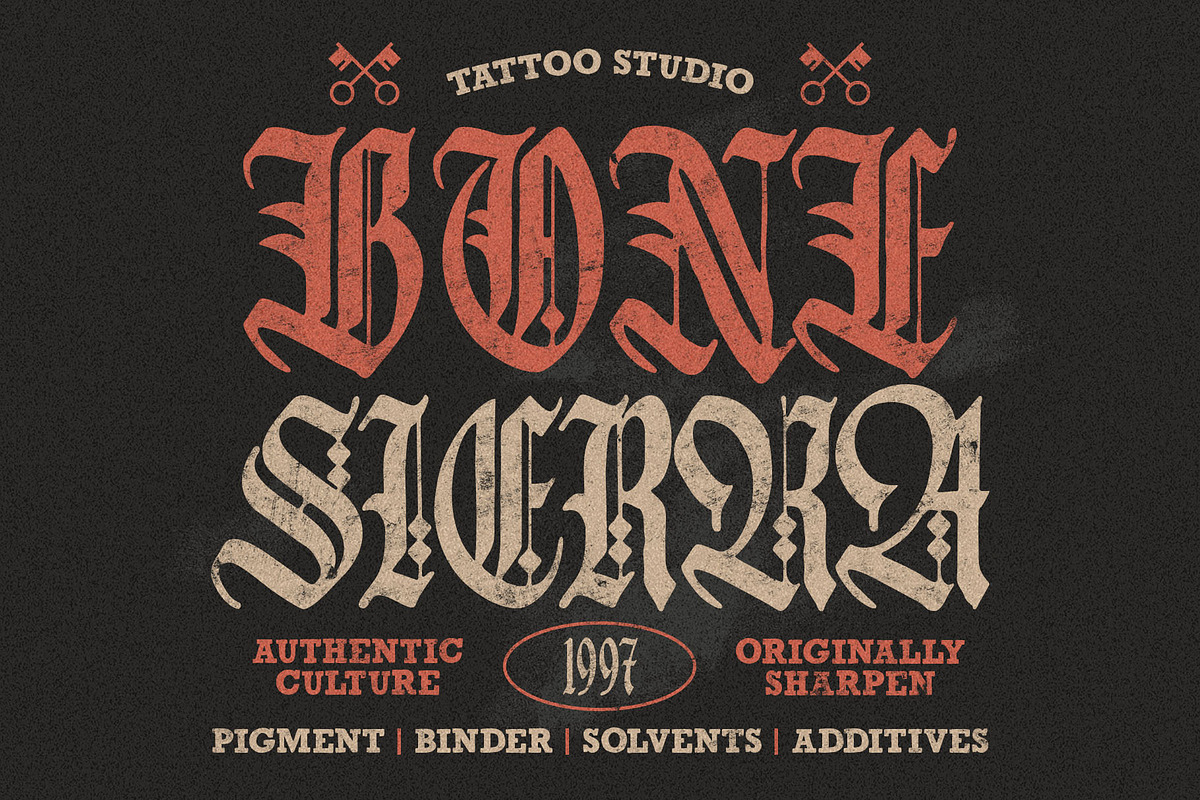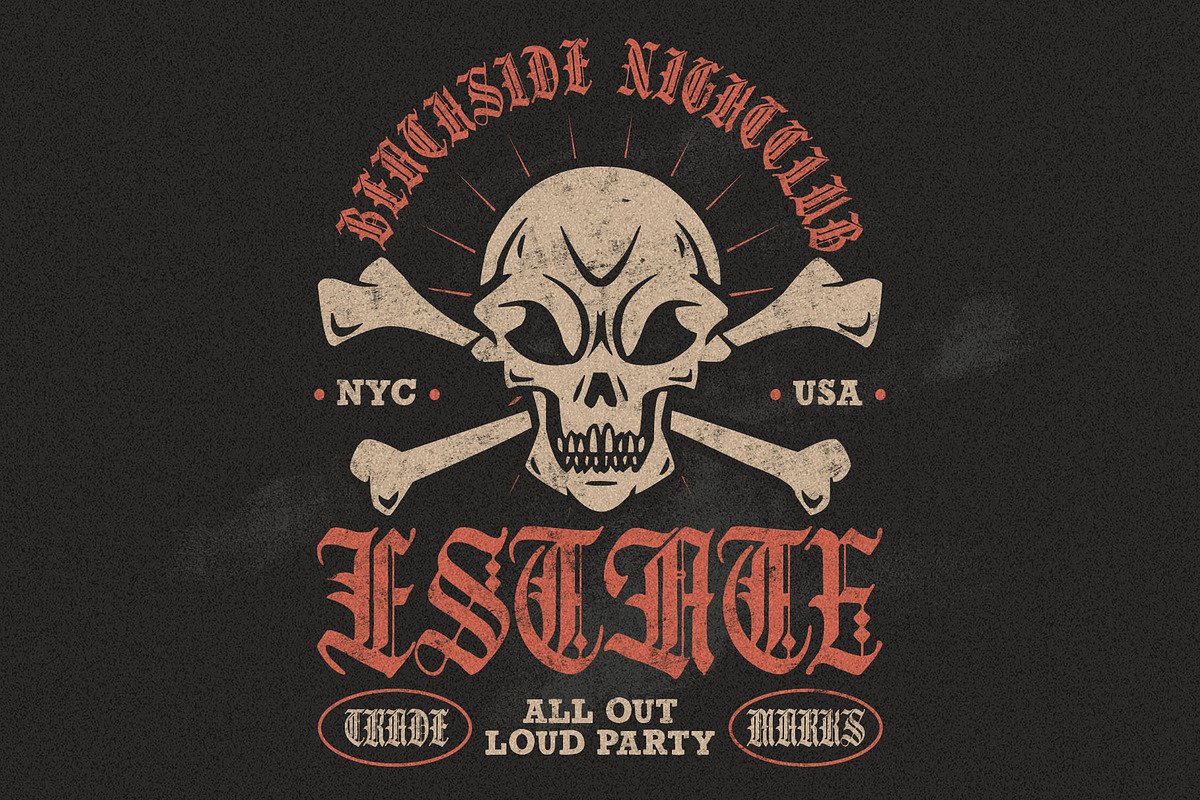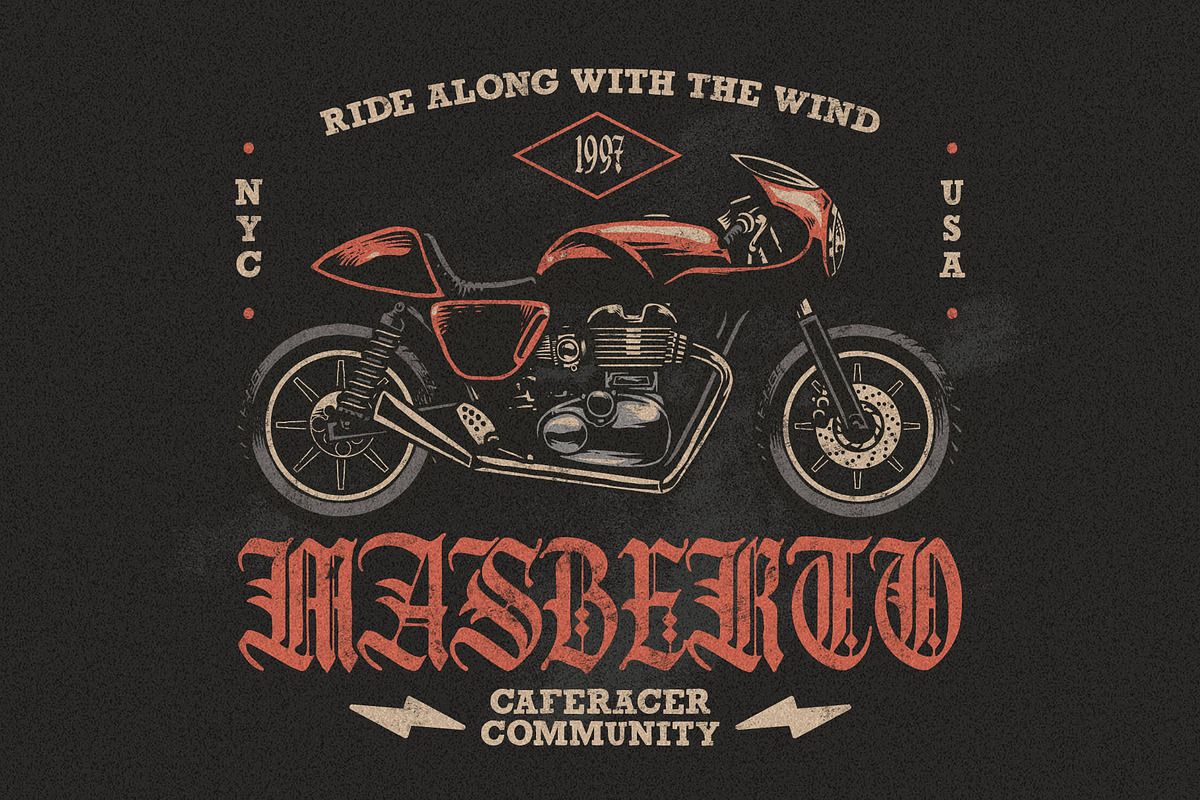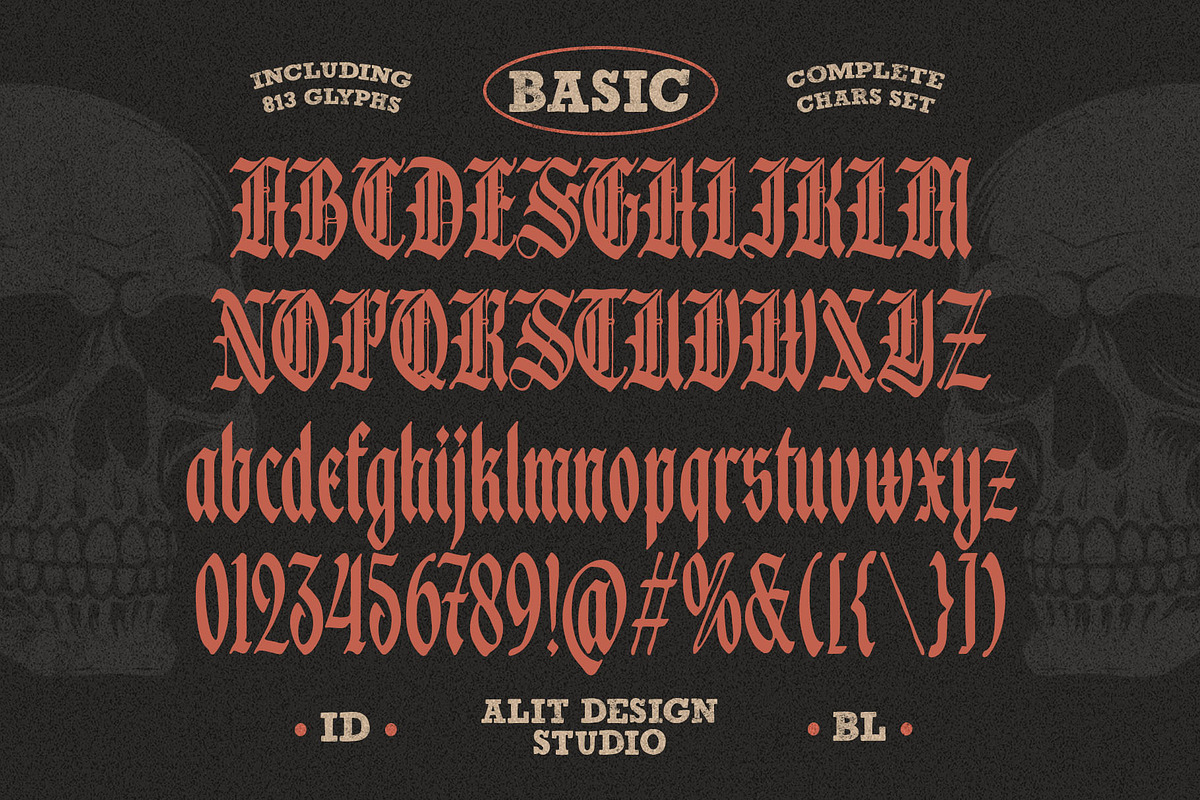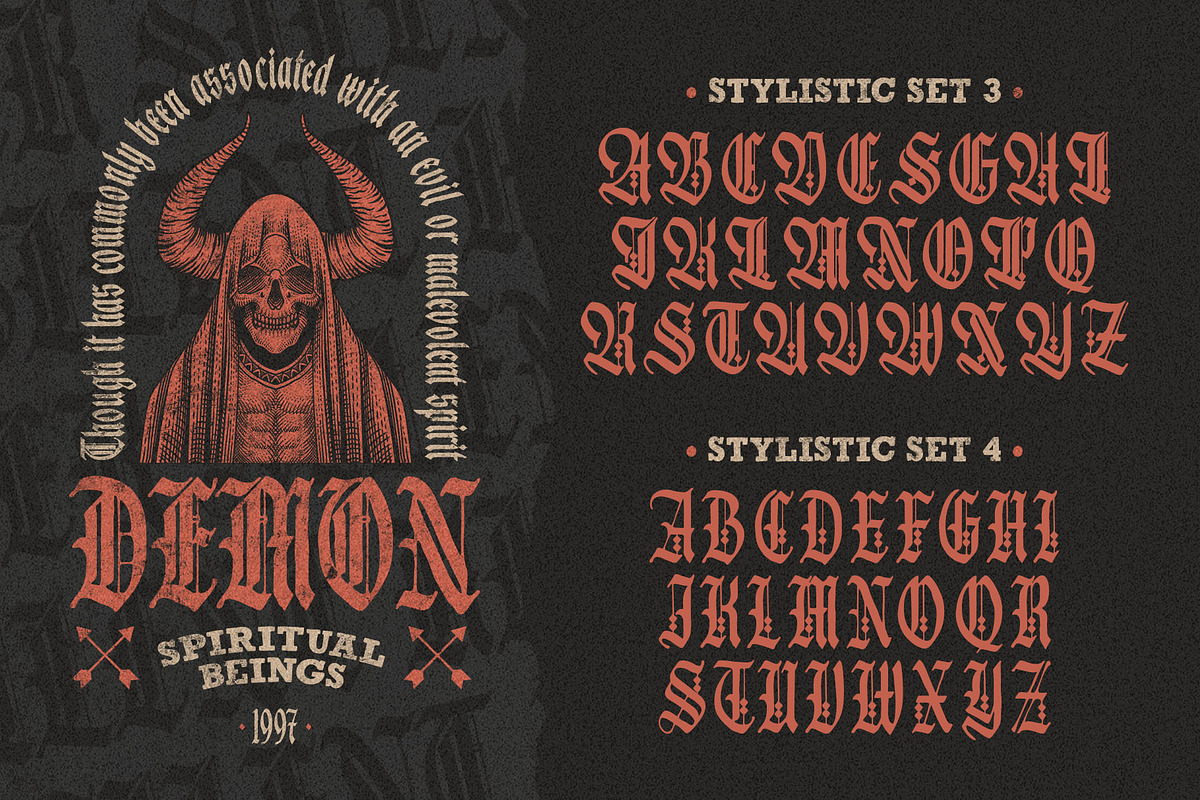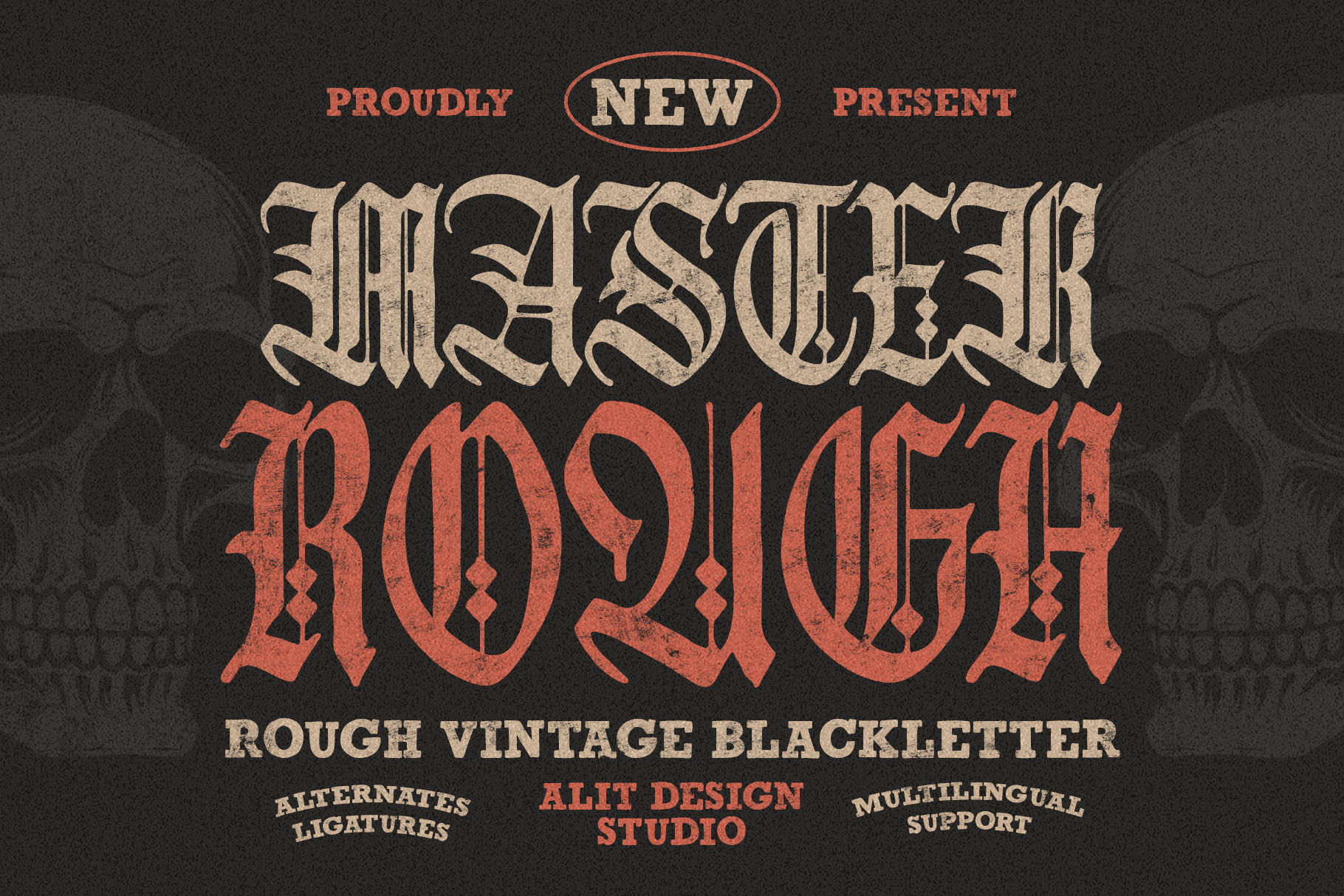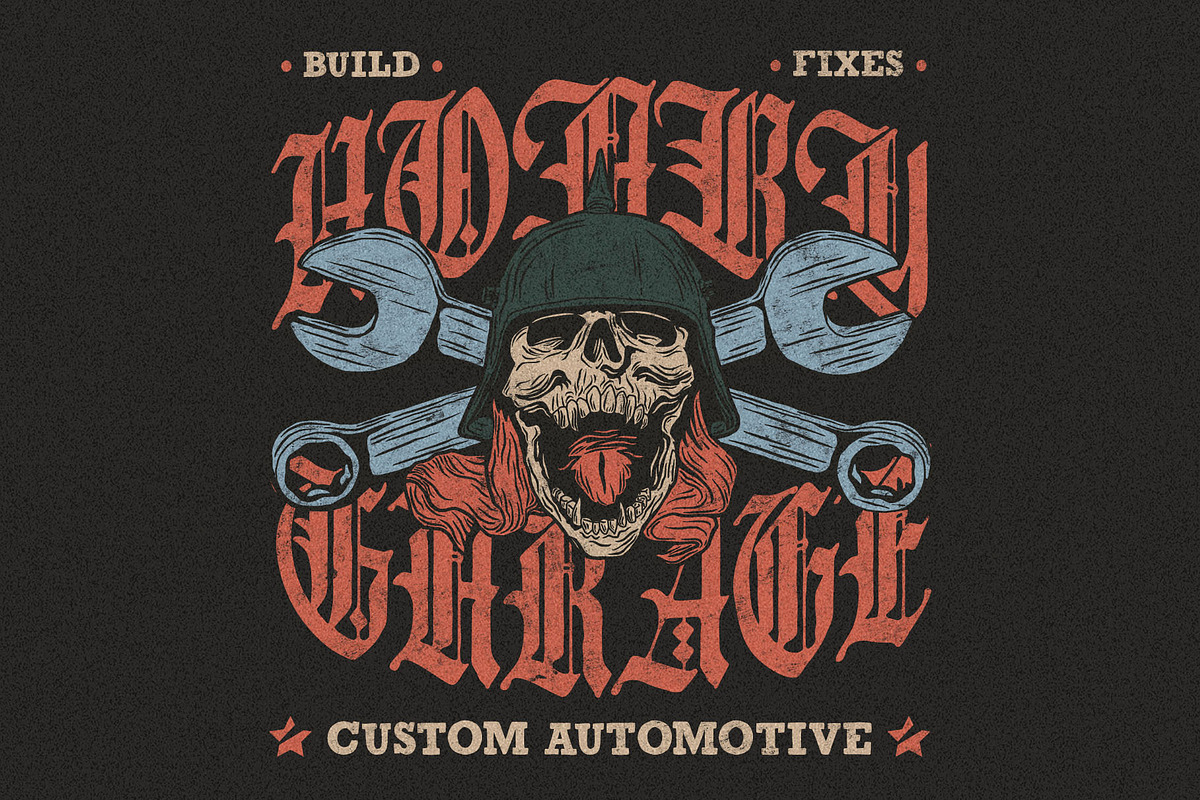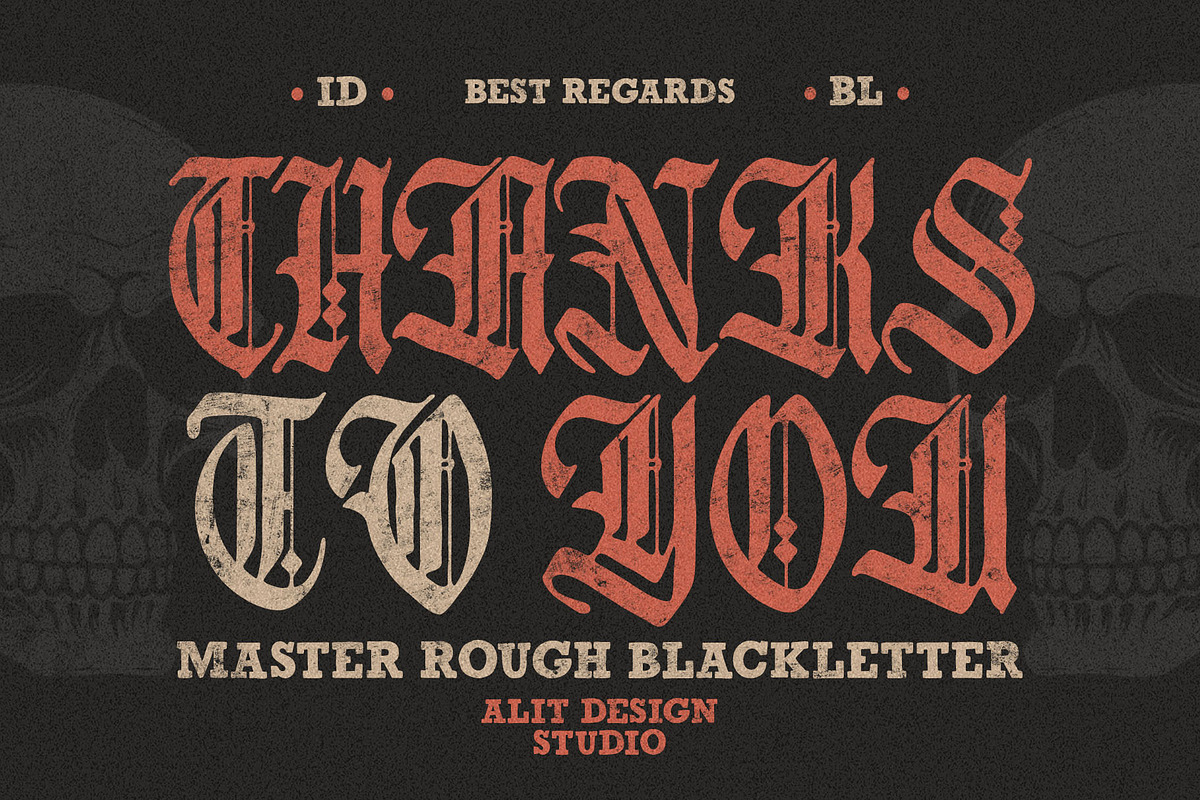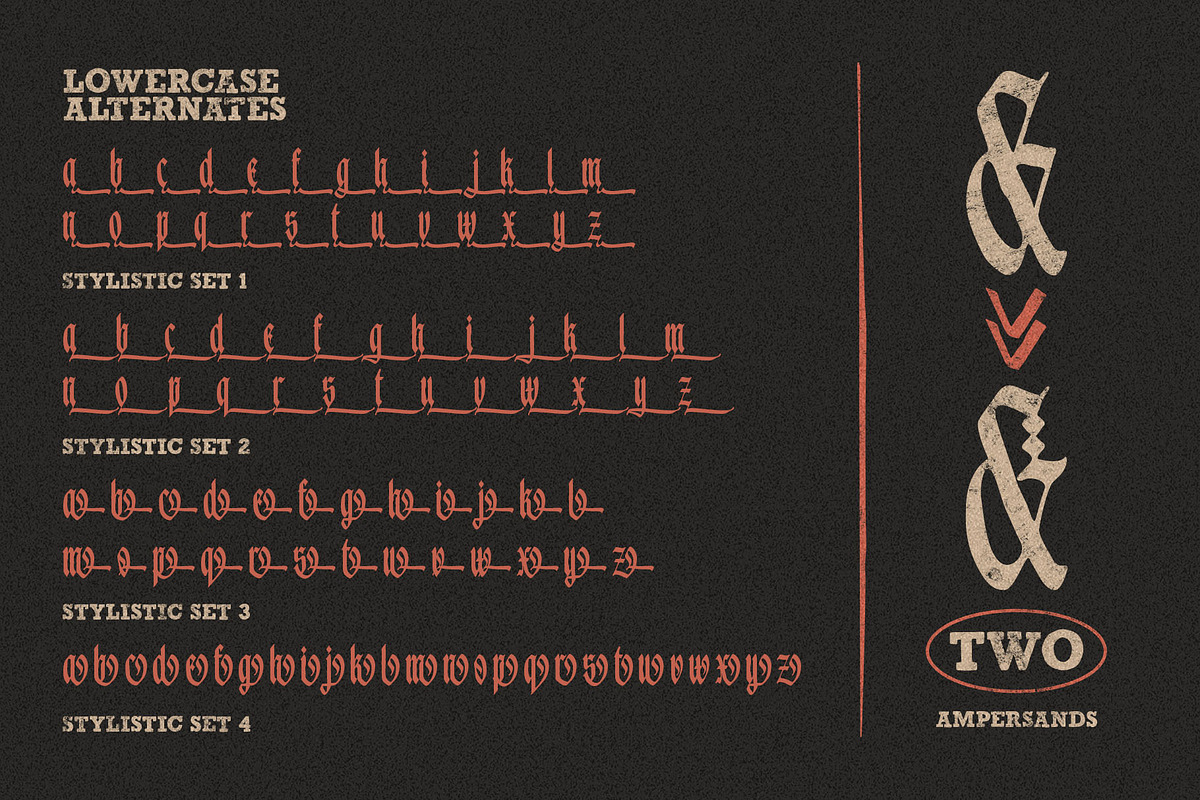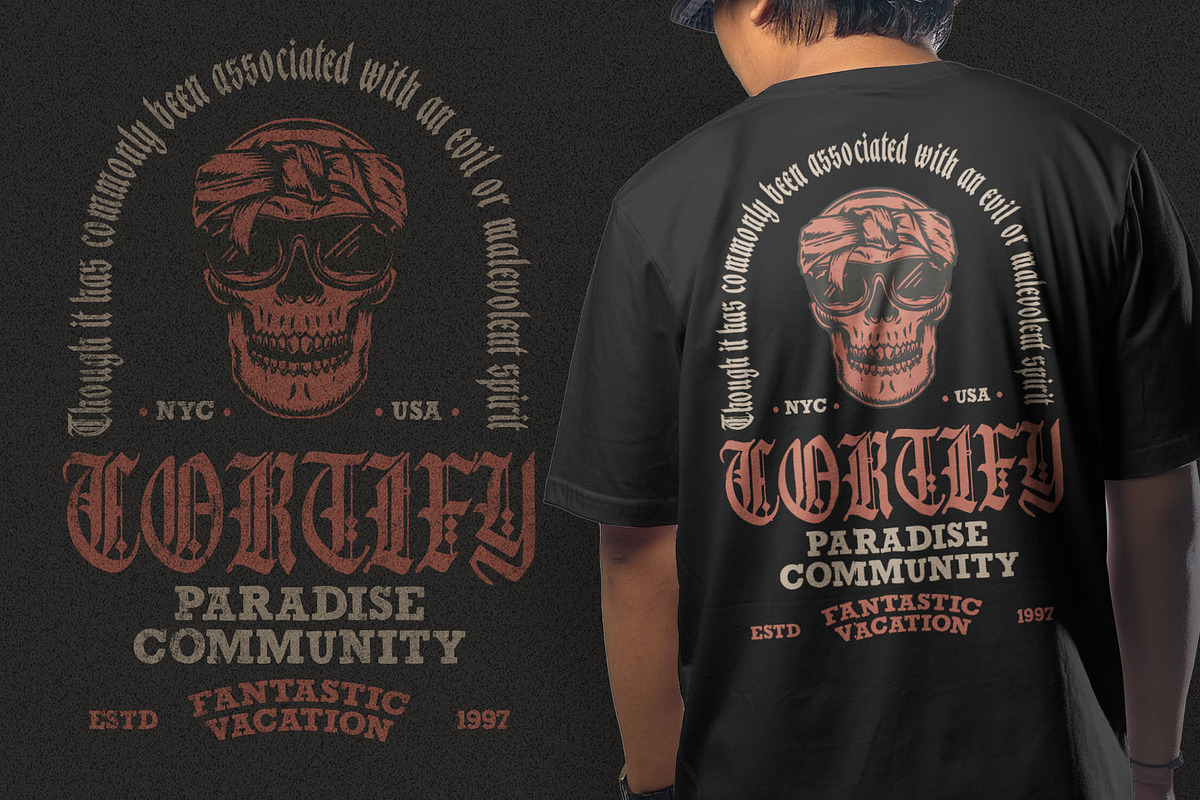
Master Rough Blackletter Typeface
Unleash the power of gothic elegance with Master Rough Blackletter Typeface—a captivating font that masterfully blends rough vintage aesthetics with old-world charm. Designed for those seeking to elevate their projects with a bold, timeless look, this typeface echoes the spirit of historic manuscripts while introducing a rugged, modern edge.
With 813 meticulously crafted characters, including stylish ligatures and elegant swashes, Master Rough Blackletter Typeface offers unparalleled versatility for any creative endeavor. Whether you're designing logos, posters, or packaging, this blackletter typeface infuses a sense of mystery and grandeur into every word.
Perfect for vintage branding, classic invitations, and everything in between—experience the majestic fusion of tradition and texture with Master Rough Blackletter Typeface.